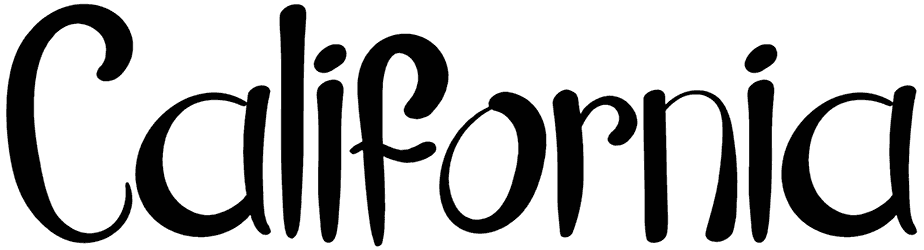
California Font
You can shake up all your artwork by departing your safe plain zone and utilizing a fabulous script font such as California, which comes with elongated and crooked surfaces.